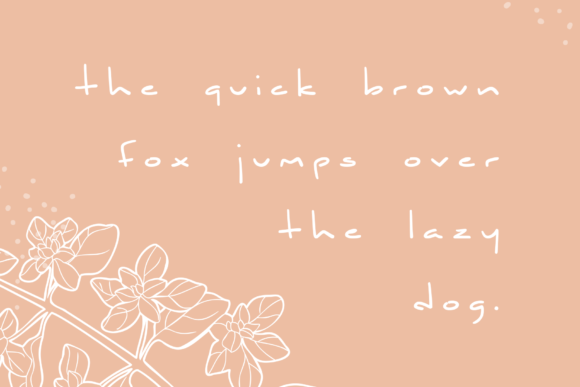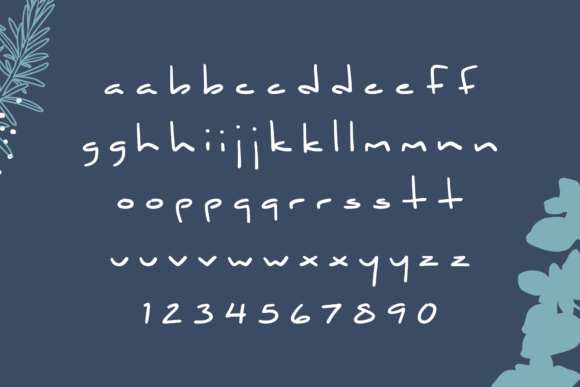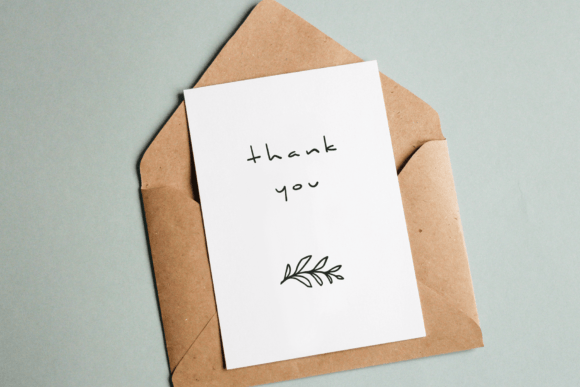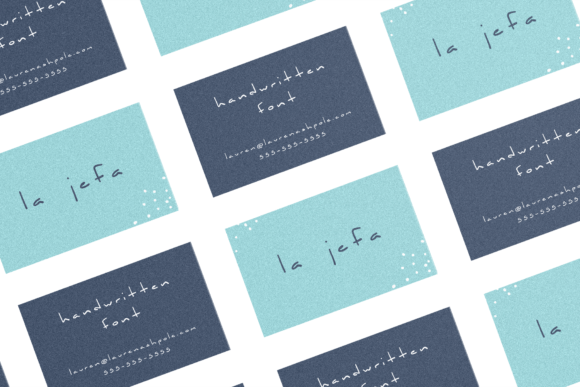
Introduction to La Jefa Font
Do you remember the Christmas card from your boss that made you feel seen and appreciated? For me, that moment sparked the creation of the La Jefa Font, a beautiful hand-lettered font designed to capture that personalized touch. As a designer, I’ve always been on the lookout for unique design resources that can elevate my creative projects. And let’s be honest, who doesn’t want to add a bit of warmth and personality to their work?
La Jefa Font is more than just a font – it’s a way to connect with your audience on a deeper level. With its short x-height and ample spacing, this font is perfect for adding a touch of whimsy and playfulness to your designs. And the best part? It’s available for free download, making it a valuable asset for designers of all levels.
Whether you’re working on a branding project or a simple social media graphic, La Jefa Font is sure to bring a smile to your face and a touch of magic to your designs. So, let’s dive in and explore the world of La Jefa Font, a high-quality design resource that’s waiting to be unleashed on your next creative project.
Key Features of La Jefa Font
- High-quality design resource with a unique, bold aesthetic, perfect for creative projects
- Comes with a transparent background, allowing for seamless integration into various design elements
- Features a clear, readable font with a range of sizes and resolutions (up to 1024×1024 pixels)
- Unique characteristics include a strong, modern feel and a wide range of styling options
Honest Review: La Jefa Font
As a designer, I’m always on the lookout for high-quality design resources to elevate my creative projects. La Jefa Font caught my eye, and I was excited to give it a try.
- ✨ Unique and bold typography: La Jefa Font has a distinctive style that’s perfect for making a statement in your designs.
- ✨ High-quality design: The font is crisp and clear, even when enlarged.
- ⚠️ Limited language support: La Jefa Font is only available in a single language, which may be a limitation for designers working on international projects.
- ⚠️ No transparent background option: This might be a problem for designers who need to use the font on a transparent background.
Overall, I’m impressed with La Jefa Font. Its unique style and high-quality design make it a great addition to any creative project. While it has some limitations, it’s still a valuable resource for designers looking for a bold and eye-catching font.
La Jefa Font
La Jefa Font is a versatile design resource ideal for creative projects. This high-quality font features a transparent background, making it perfect for use in various design software.
Tips for Getting the Most Out of La Jefa Font
To get the most out of La Jefa Font, use it in combination with other design elements to create a visually appealing design. Experiment with different font sizes, colors, and arrangements to find the perfect look for your project.
La Jefa Font is perfect for use in creative projects such as brochures, flyers, business cards, and social media graphics. Its high-quality design and transparent background make it ideal for use in a variety of design software.